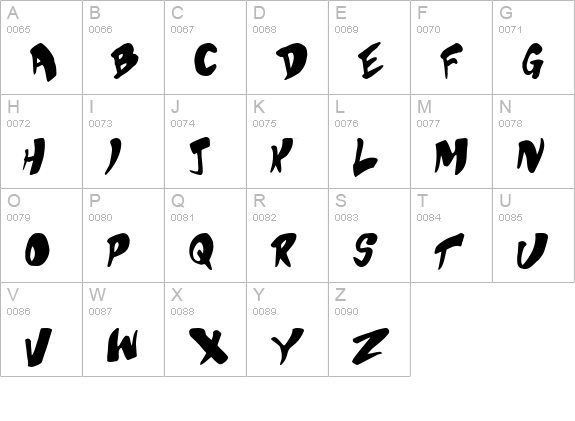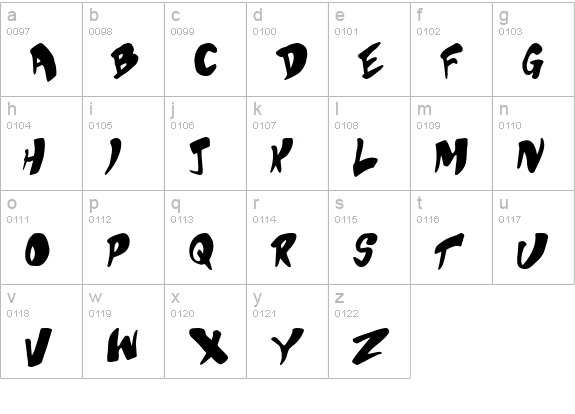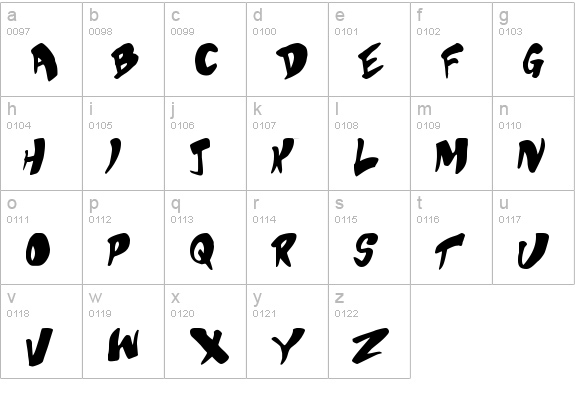
Bubblegum Superstar font is a playful and whimsical typeface that exudes fun and energy. With its bubbly letters and bold design, this font is perfect for adding a touch of personality to any project. Whether you're creating party invitations, posters, or social media graphics, Bubblegum Superstar will make your text pop and stand out. The best part is that Bubblegum Superstar font is completely free to download at FontsMarket.com. You can easily access this delightful font without any cost, making it a fantastic choice for designers, creatives, and anyone looking to add a touch of charm to their work. Embrace the playful spirit of Bubblegum Superstar font and let your creativity shine with this free and versatile typeface.